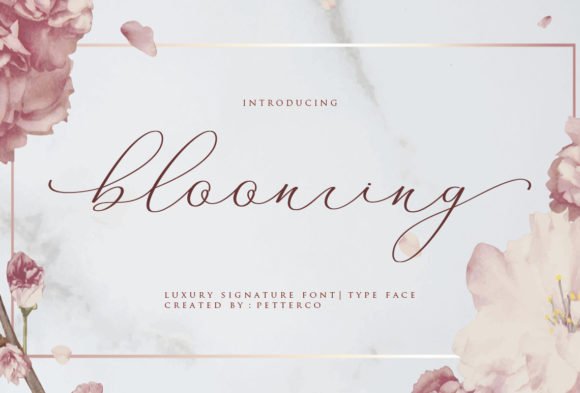
Have you ever been brainstorming a new project, and suddenly, the perfect idea strikes? The words flow effortlessly, and your imagination runs wild. That’s exactly what happened when I first laid eyes on the Blooming Font – a fancy calligraphy font that instantly elevates any design to a new level.
As a designer, I can attest to the power of having the right tools at your disposal. The Blooming Font is more than just a font; it’s a way to add an elegant touch to your crafts. Whether you’re working on branding projects, logo designs, or social media posts, this font is sure to make a lasting impression.
Blooming Font Key Features
- Unique Characteristics: The font features a unique, hand-drawn design with intricate details and subtle flourishes, making it perfect for creating visually striking designs.
Blooming Font Review
First off, let me say that I’m a fan of the aesthetic of Blooming Font. The delicate, hand-drawn style is reminiscent of classic floral illustrations, and it’s sure to bring a touch of whimsy to any design project. ✨ The font’s organic feel and subtle texture add depth and visual interest, making it a great choice for anything from branding to editorial content.
One of the standout features of Blooming Font is its versatility. It’s suitable for a wide range of applications, from body text to display headings, and it works equally well in both digital and print formats. ✨ The font’s legibility is also noteworthy, with clear, readable letterforms that make it easy to read even in smaller sizes.
However, there are a few limitations to consider. ⚠️ For one, the font’s decorative nature may make it less suitable for projects that require a more modern or minimalist aesthetic. Additionally, some users may find the font’s irregularities and flourishes to be distracting or overwhelming.
- Works well for projects that require a touch of elegance and whimsy
- Suitable for a wide range of applications, from body text to display headings
- Legible and readable even in smaller sizes
- May be less suitable for modern or minimalist designs
- Irregularities and flourishes may be distracting for some users
Blooming Font is ideal for:
Food and beverage branding
Floral and garden-themed designs
Any design project that requires a playful and elegant font.